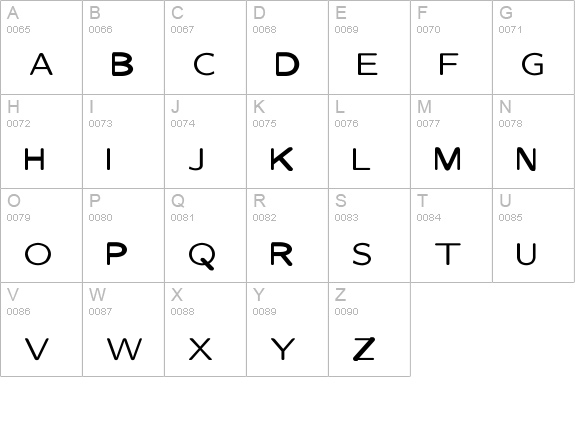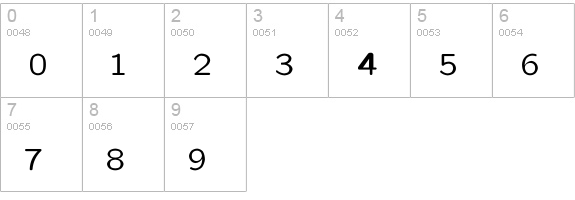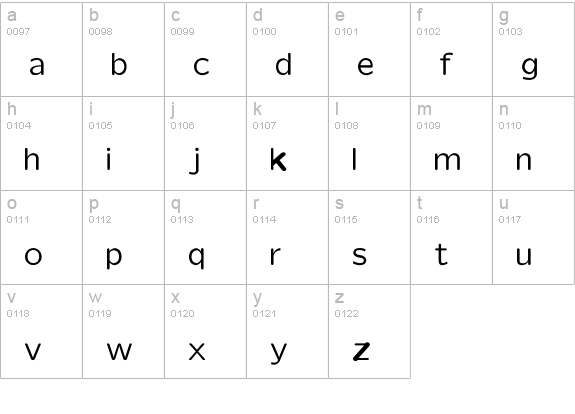
CM_SansSerifQuotation Regular Font Details
CM_SansSerifQuotation Regular is the standard, neutral variant in the CM_SansSerifQuotation typeface family \xE2\x80\x94 well suited to general body text, paragraphs, and standard typographic work.
CM_SansSerifQuotation Regular font is a sleek and modern typeface designed for adding a touch of sophistication to any project. With its clean lines and contemporary aesthetic, this font is perfect for conveying a sense of elegance and professionalism. The CM_SansSerifQuotation Regular font features a balanced combination of straight and curved lines, making it versatile for a wide range of design applications. What sets this font apart is that it is available for free download at FontsMarket.com. This means you can easily access this stylish typeface without any cost, allowing you to elevate your designs without breaking the bank. Whether you're working on a website, logo, or printed materials, CM_SansSerifQuotation Regular font is sure to make a lasting impression. Download it today and see for yourself the impact it can have on your projects.